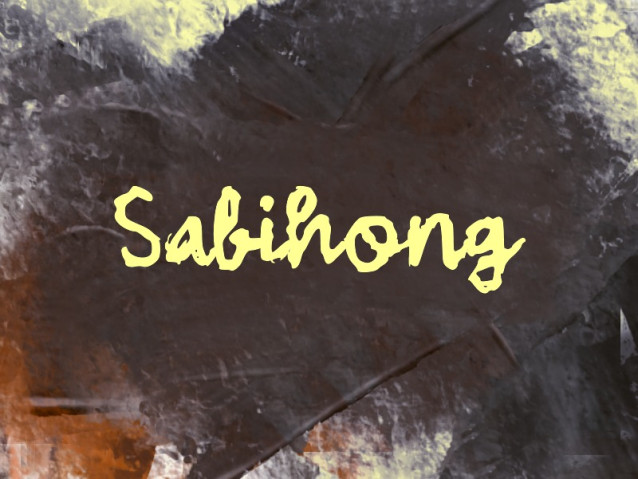
Sabihong Font
Sabihong Font is a stylish handwritten script font that captures the beauty of natural brush strokes. With its smooth curves and organic flow, this font brings a personal, elegant, and artistic touch to any design. Each letter is crafted to feel authentic and expressive, making it perfect for projects that need a warm and human feel.
Sabilong works beautifully for branding, logos, social media graphics, invitations, packaging, and quotes. Its bold yet soft appearance ensures readability while still standing out with a unique personality.Whether you’re aiming for a modern, creative, or slightly playful look, Sabilong adds charm and character to your typography.